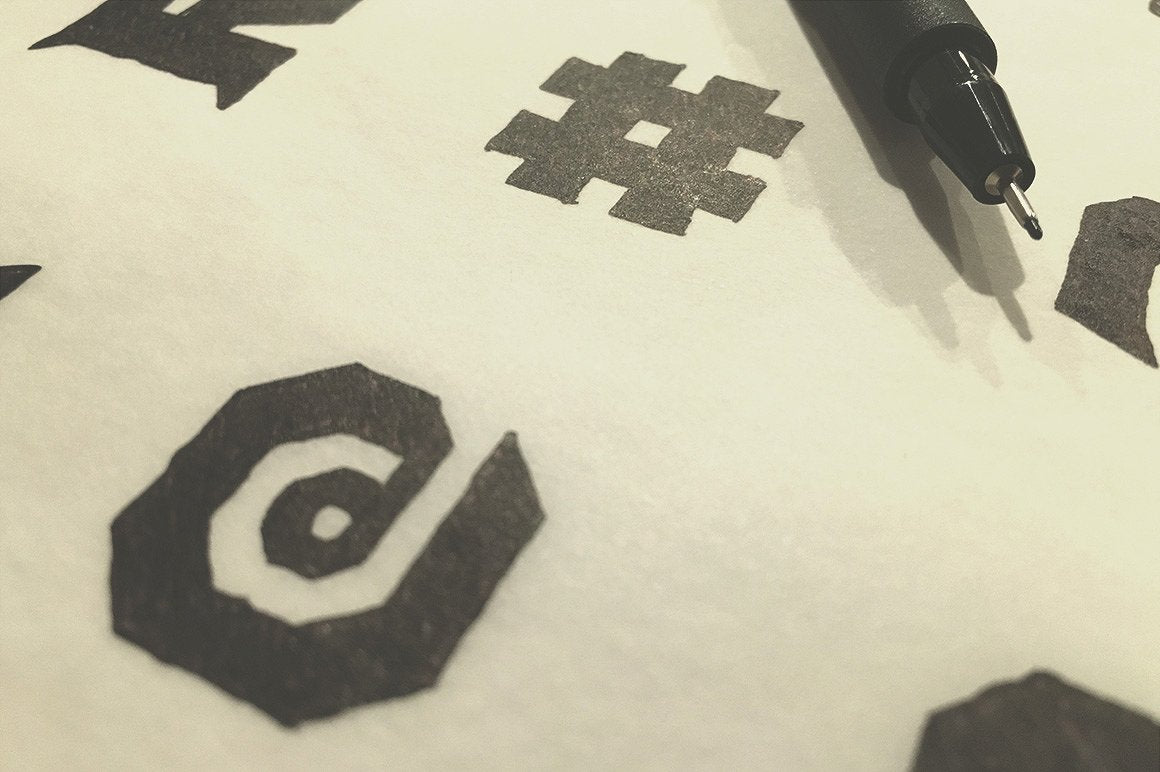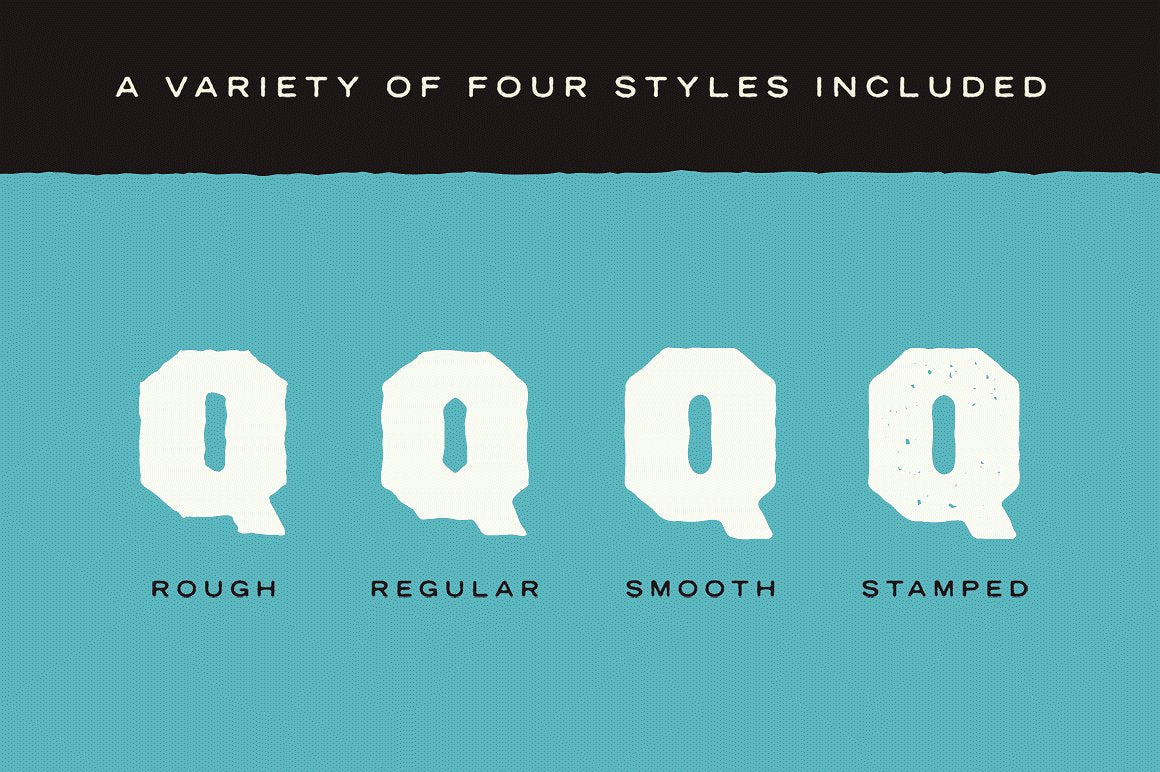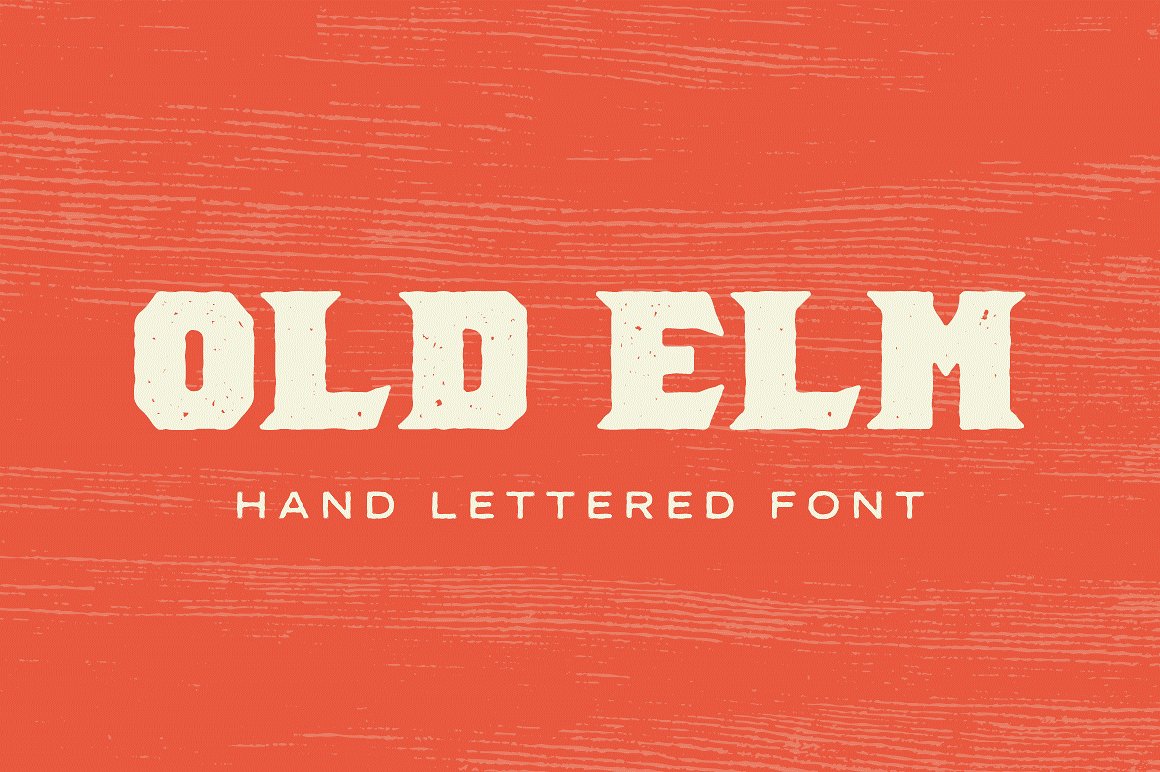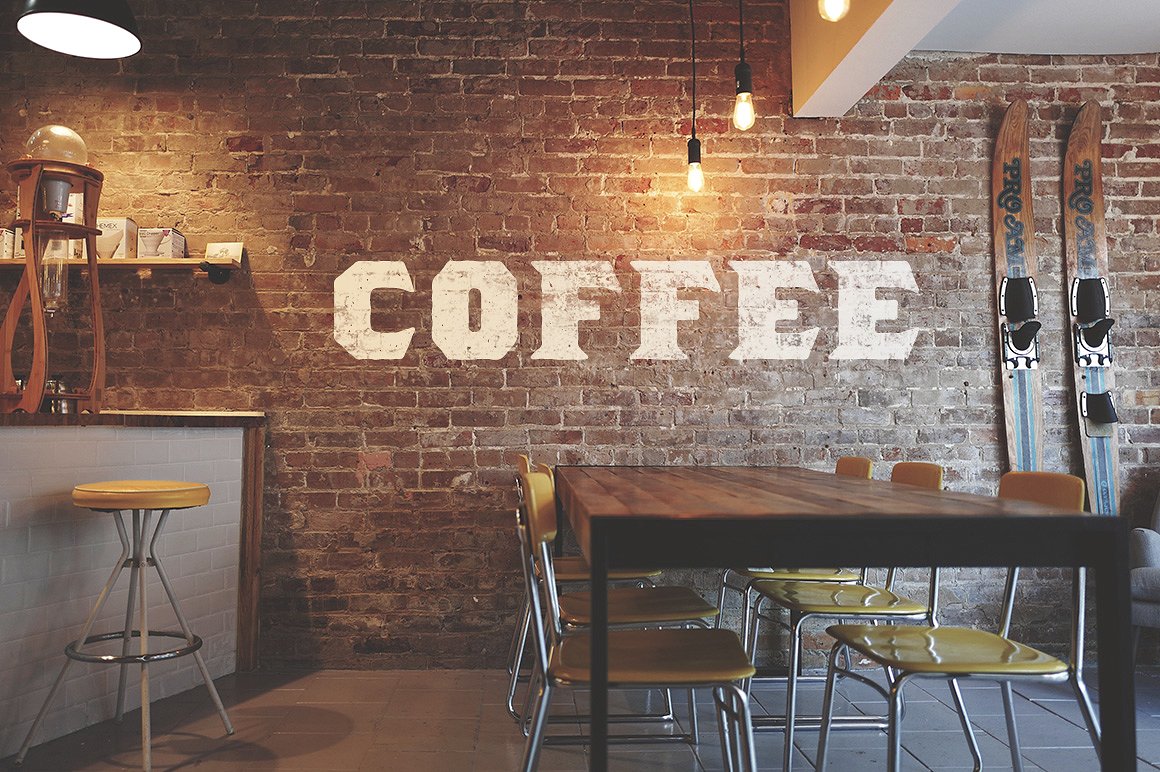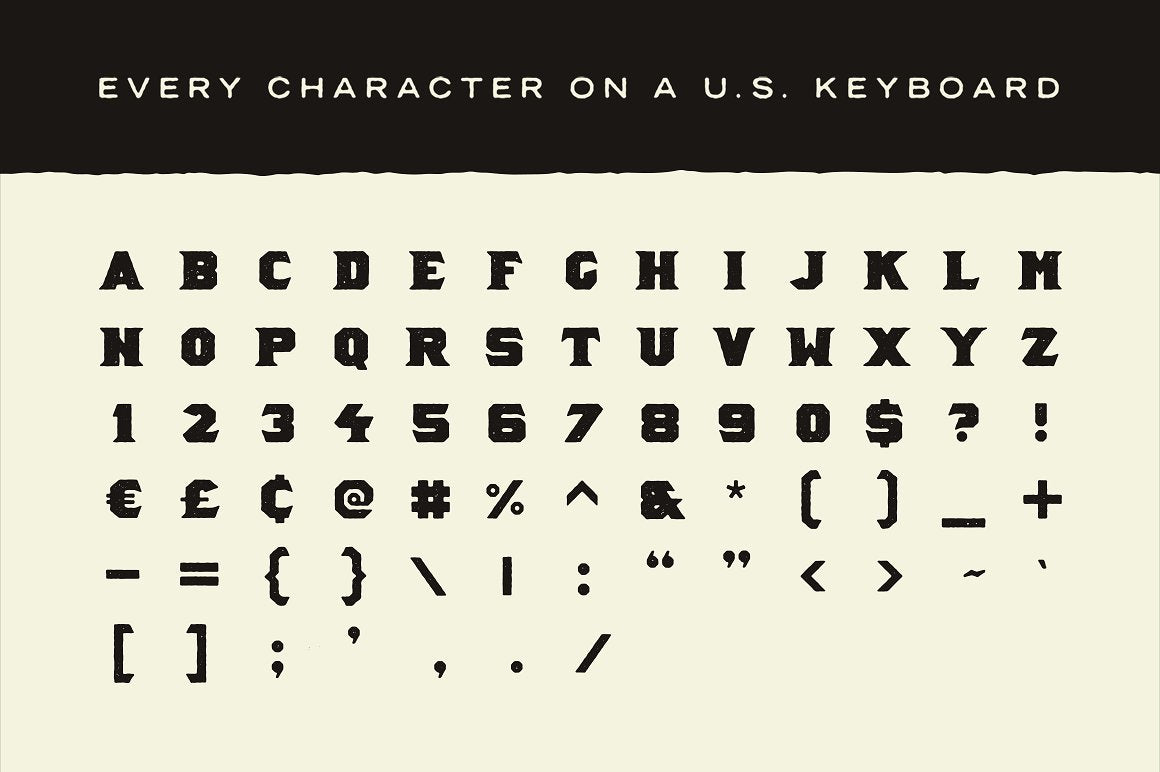
Old Elm Font
A bold and rugged hand lettered font designed with the vintage logo in mind. This original font delivers a bold high-impact statement with a hand-lettered touch.
Four unique variations of the font are included
- Regular
- Rough
- Smooth
- Stamped
I didn’t skimp on the characters. You get every single character on a U.S. keyboard, plus the British Pound symbol, the Euro symbol, and the U.S. cent symbol. 72 characters in all.